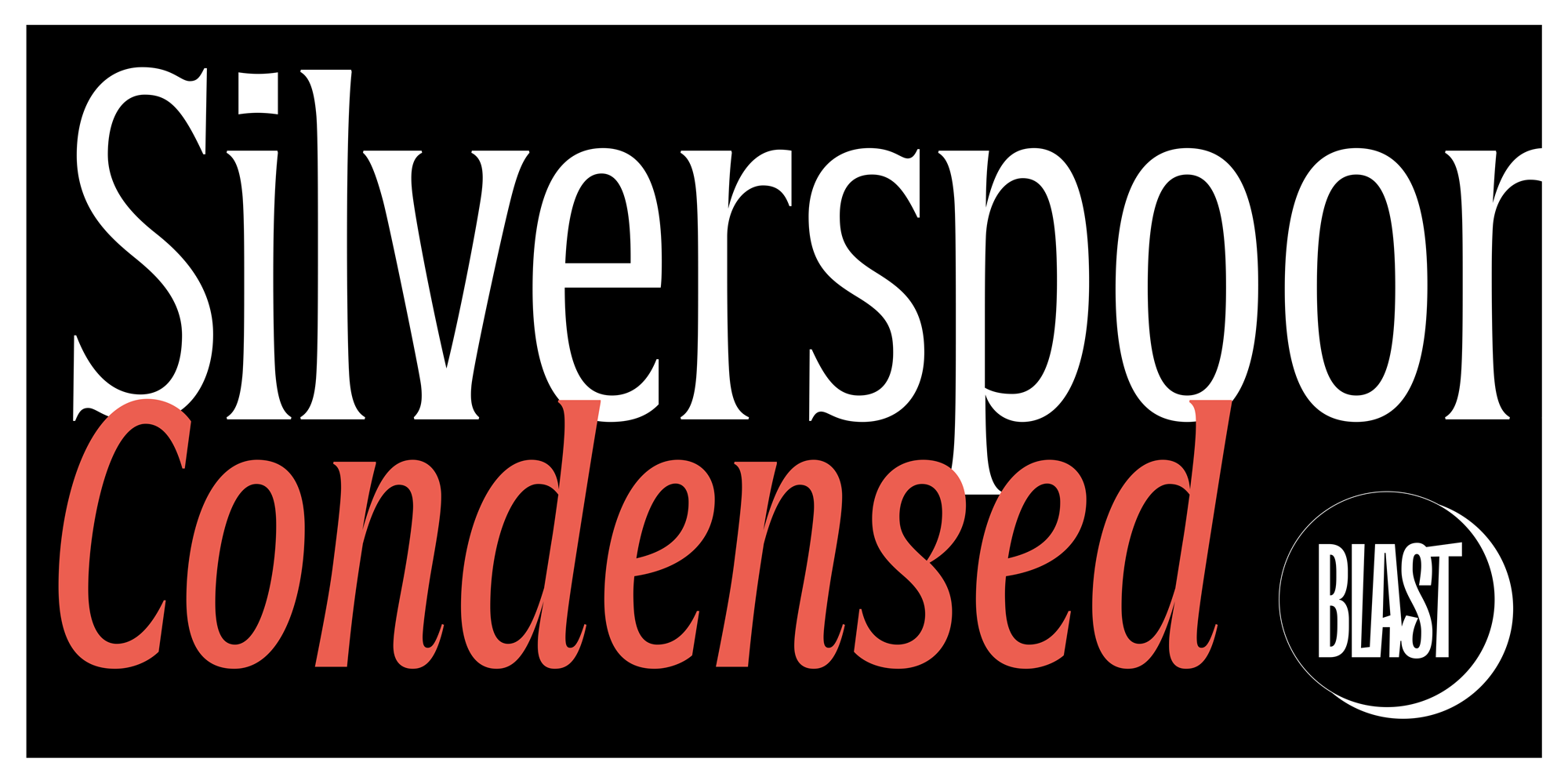
Silverspoon Condensed is a serif font family. This typeface has six styles and was published by Blast Foundry.
Silverspoon Condensed
Silverspoon Condensed is a space-saving version of its older cousin, which can be used for headlines and is especially attractive for setting large quotes and logos on packages.
The original inspiration comes from the letters found on the Albert S. Samuels Clock on 856 Market Street in San Francisco, which Diana digitized in a speed-design session while visiting the Bay Area in 2017. Since then, the design has grown and seem multiple updates via Future Fonts. In 2022 it was completed as multi-width family with an extended character set.
Silverspoon is a typeface that performs well at medium sizes. Its flared serifs, tight spacing, and compact vertical proportions make it look very stable. The user has the option to turn on slightly more curly alternates, which break the blockiness of the text setting, adding a touch of panache for those who need it. The italics are more curly, and flamboyant by desigd, performing well to add a touch of sparkle to any design.